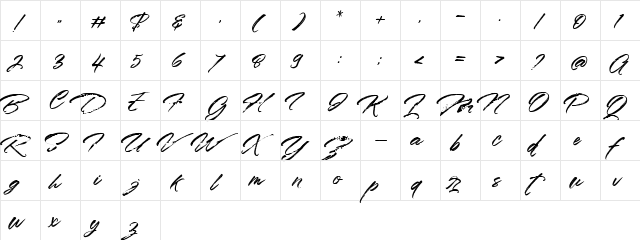
Styledeep Brush Personal Use Regular
| Foundry | Breakline Studio |
| Designer | Breakline Studio |
Design Context for Styledeep Brush Personal Use Typeface
Styledeep Brush Personal Use flows with the natural rhythm of handwritten lettering, making it ideal for designs that call for warmth and personal expression.
Font Pairing: Combine Styledeep Brush Personal Use with a simple geometric sans for maximum contrast — the tension between flowing curves and clean structure is a classic typographic pairing.
Pro Tip: Pair Styledeep Brush Personal Use with a clean sans-serif for supporting text. The contrast between fluid script and geometric structure creates an elegant typographic hierarchy.